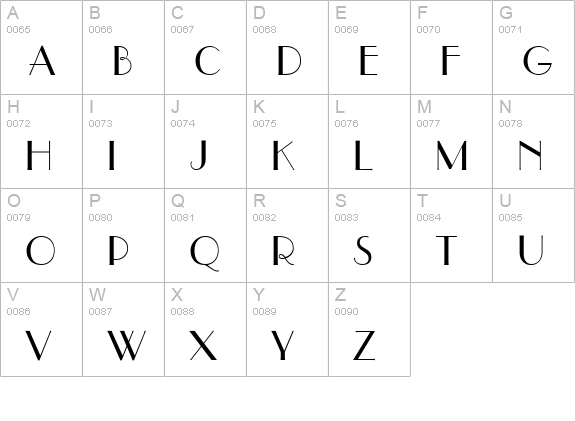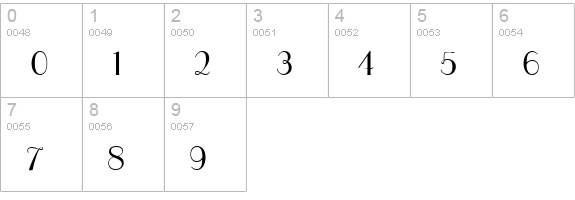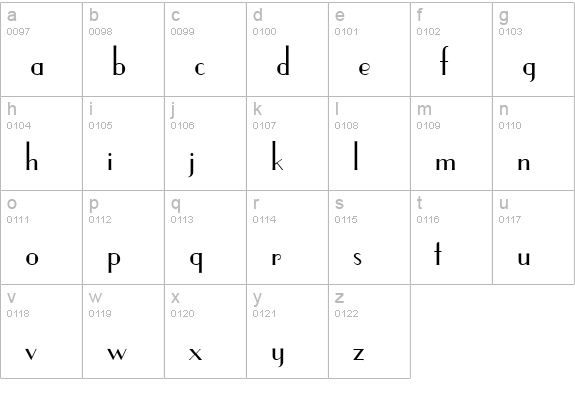
CgParisian Font Details
CgParisian is an elegant and sophisticated font that exudes a sense of timeless beauty and grace. With its delicate curves and fine lines, this font captures the essence of Parisian chic and sophistication. Whether used for invitations, branding, or editorial design, CgParisian adds a touch of refinement to any project. The best part about CgParisian font is that it is available for free download at FontsMarket.com. This means you can easily access this stunning typeface and use it in your projects without any cost. Don't miss out on the opportunity to elevate your designs with the beauty of CgParisian font, now freely available for you to enjoy.